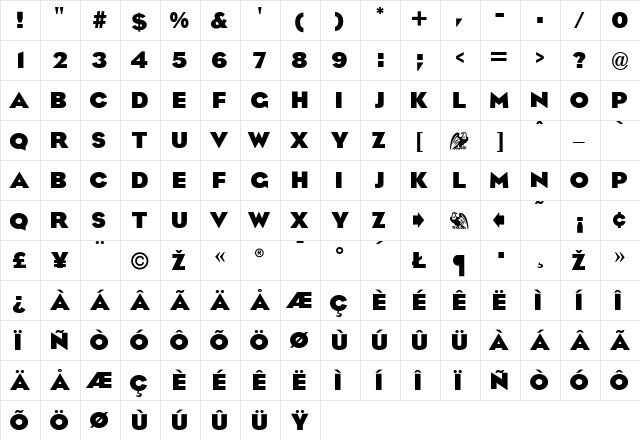
EagleBold Regular
Design Context for EagleBold Typeface
EagleBold offers clean, dependable letterforms without strong stylistic allegiance, making it a practical choice for designers who need flexibility. The heavy weight commands attention and anchors typographic hierarchies.